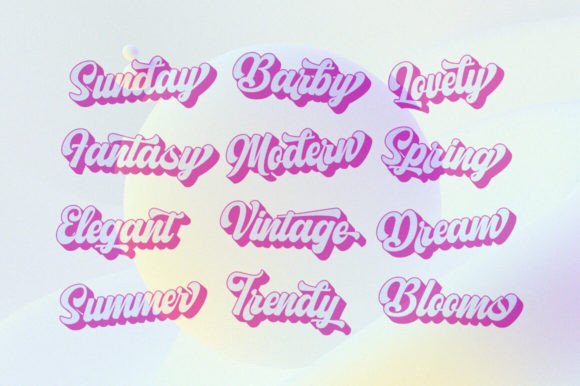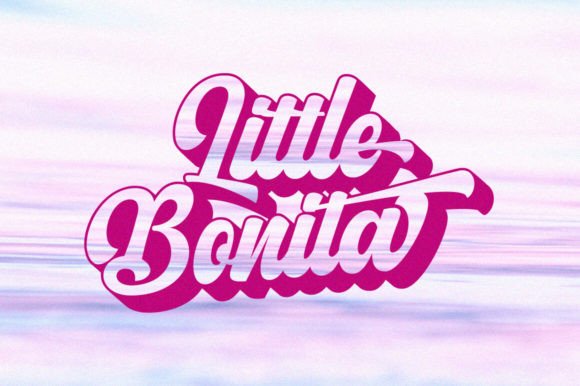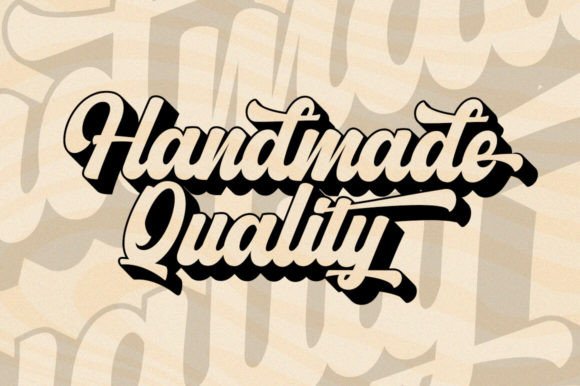
Mitona Vintage Font
Mitona Vintage font is a retro gem styled like a classic logotype letter, taking you on a nostalgic journey back in time. With its distinct retro flair and bold, eye-catching design, Mitona Vintage adds a touch of old-school cool to your projects. Perfect for creating standout logos, headlines, and branding that exude timeless charm and character.